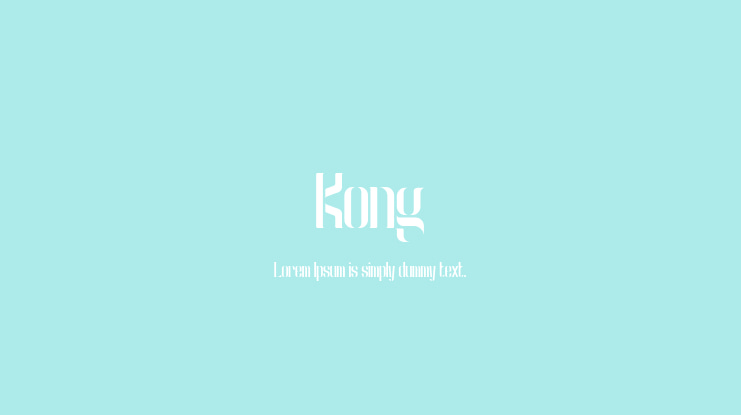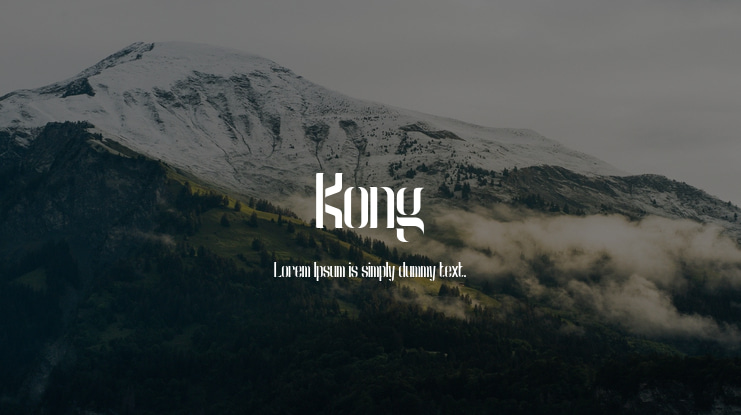
Kong Font
Kevin He
空 (pronouncing as Kong) in Mandarin is emptiness. It is also explained as white, empty or breathing space in graphic design.
Kong means nothing but Kong is everything. Kong could be a little white space between letter and letter, or empty space around the dot-line-face. Different percentage of Kong gives different kind of look and feel to the audiences. Kong is a design philosophy to me, because Kong creates room for creativity and imagination.
Here Im Introducing Kong, a modern oriental display typeface.
This typefaces is designed for large points setting, contains uppercase, lowercase, number, punctuation and symbol. Kong comes in stencil with oriental calligraphic terminals mixed into the condensed type giving it that unique artistic expression. Its simplicity makes it a very legible and stylish display font, and perfect for headlines, title, etc.